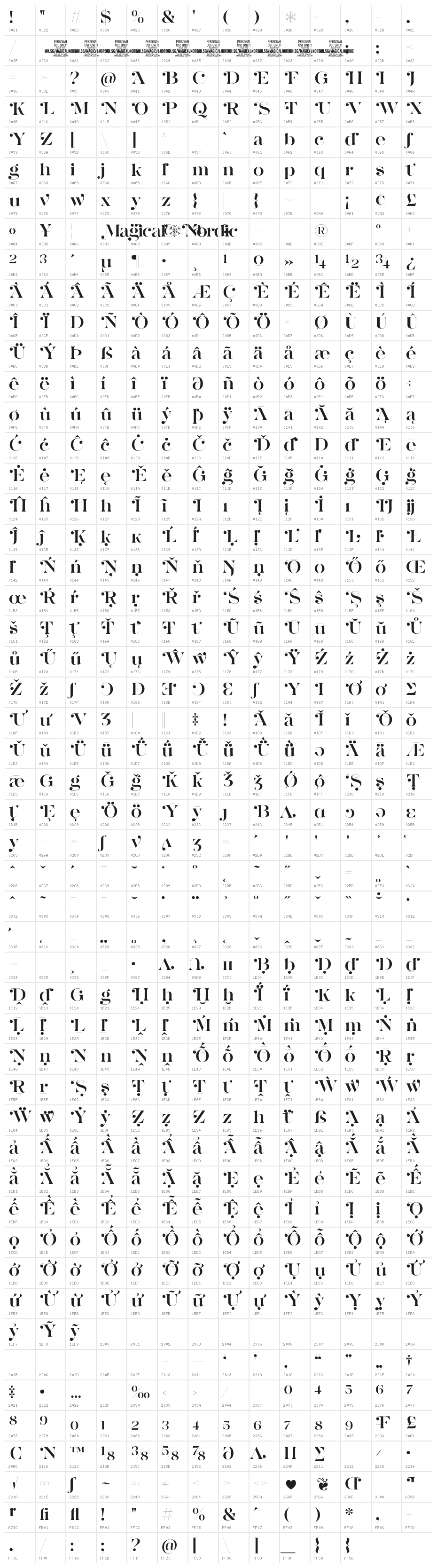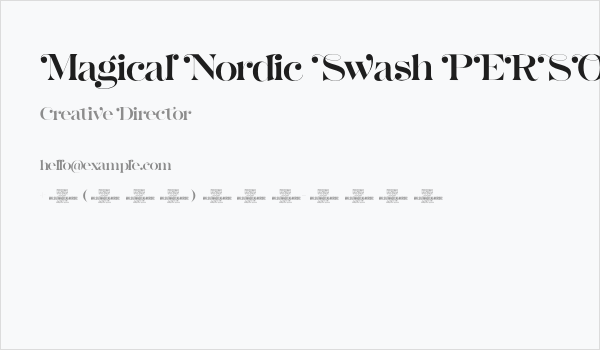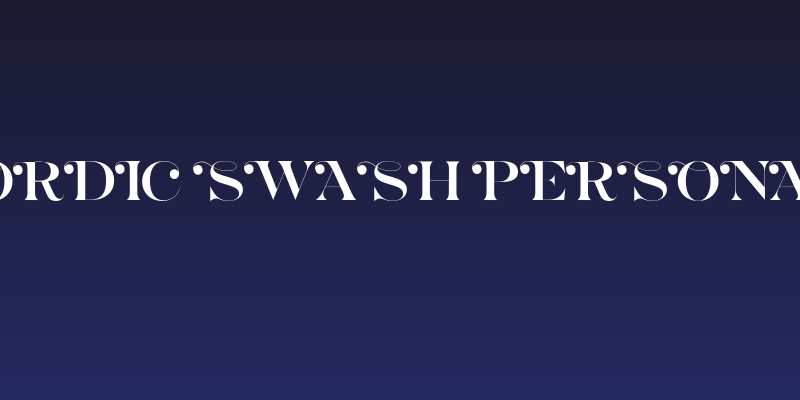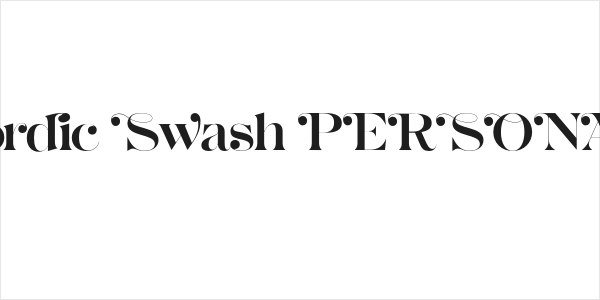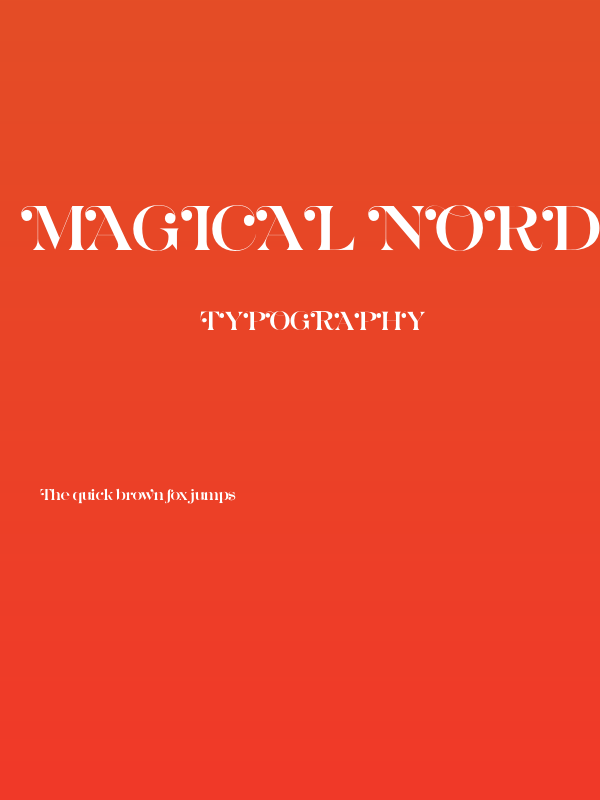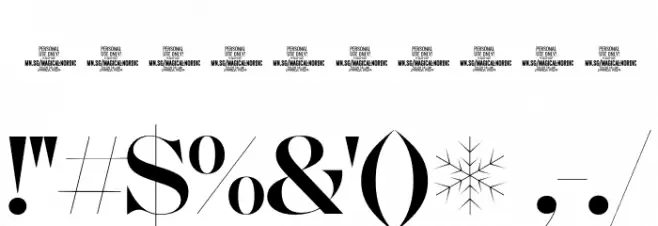
Magical Nordic Swash PERSONAL Regular Font
Magical Nordic Swash PERSONAL Regular Description
This font features a unique blend of modern and decorative styles, characterized by its bold, sweeping curves and intricate swashes. The uppercase letters are particularly striking, with exaggerated serifs and elegant flourishes that give each character a sense of movement and flair. The lowercase letters maintain this decorative style, with smooth, rounded forms and subtle embellishments. The numbers and special characters are equally ornate, making this font ideal for projects that require a touch of sophistication and creativity. The overall design is both eye-catching and versatile, suitable for a variety of design applications.
| Overall Style | Modern, Decorative |
| Use Case | Logos, Headlines, Posters |
| Proposed Projects | Ideal for branding, invitations, posters, and any project requiring a sophisticated, artistic touch. |